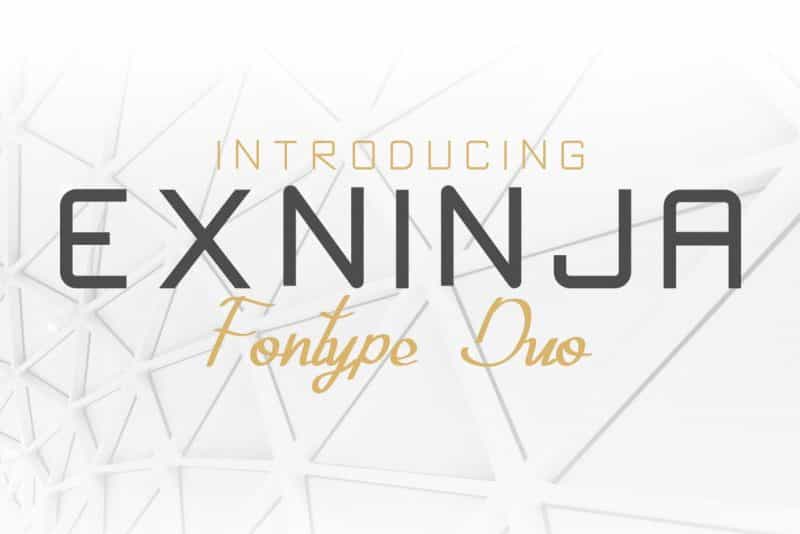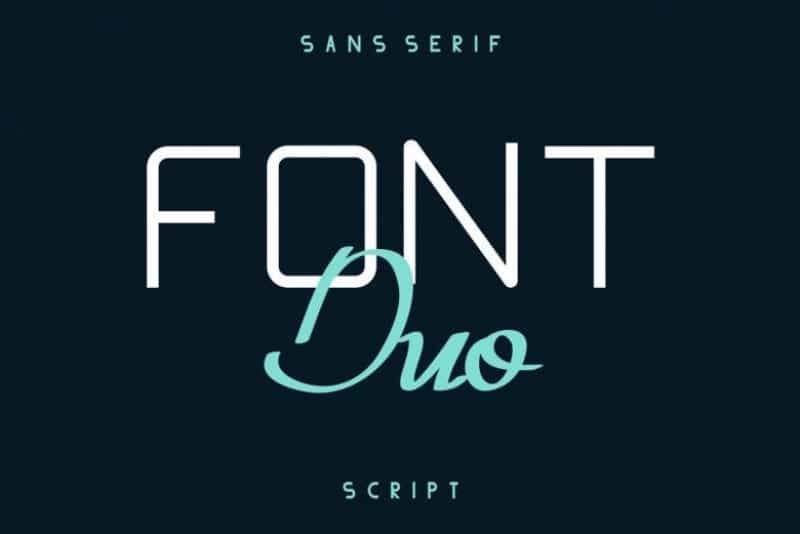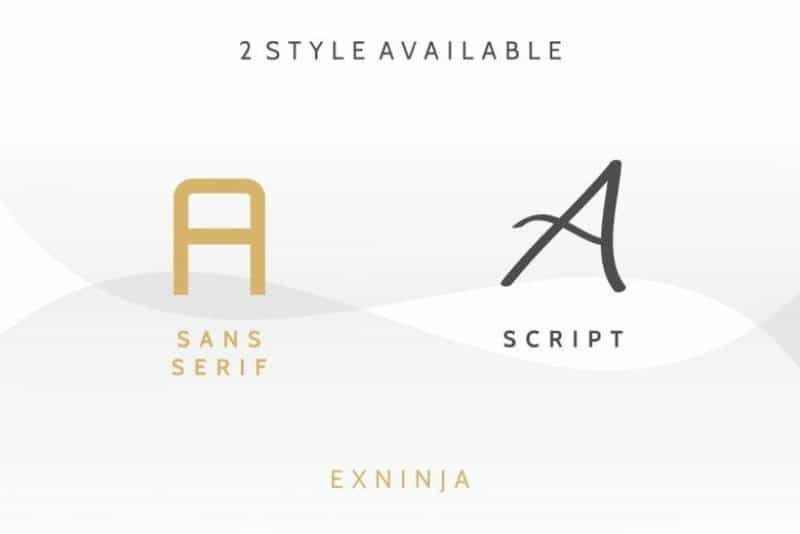
Discover Exninja Font Duo, part of the Sans Serif Calligraphy collection—a versatile and unique font perfect for adding a personal touch to your projects. Download it for free and enjoy crafting designs with style, from invitations to social media posts. This font is available exclusively for personal use, giving you the freedom to create without limits. Unlock your creativity with Exninja Font Duo today!
Hello Everybody!Introducing our newest font : Exninja!This is a new Duo Font with Sans Serif and Calligraphy Script. It has a sophisticated styling font which will be great for branding, logo, photography, signature, . This is why it is so elegant, classy, strong and beautiful. business card, sign, flyer, leaflet etc.